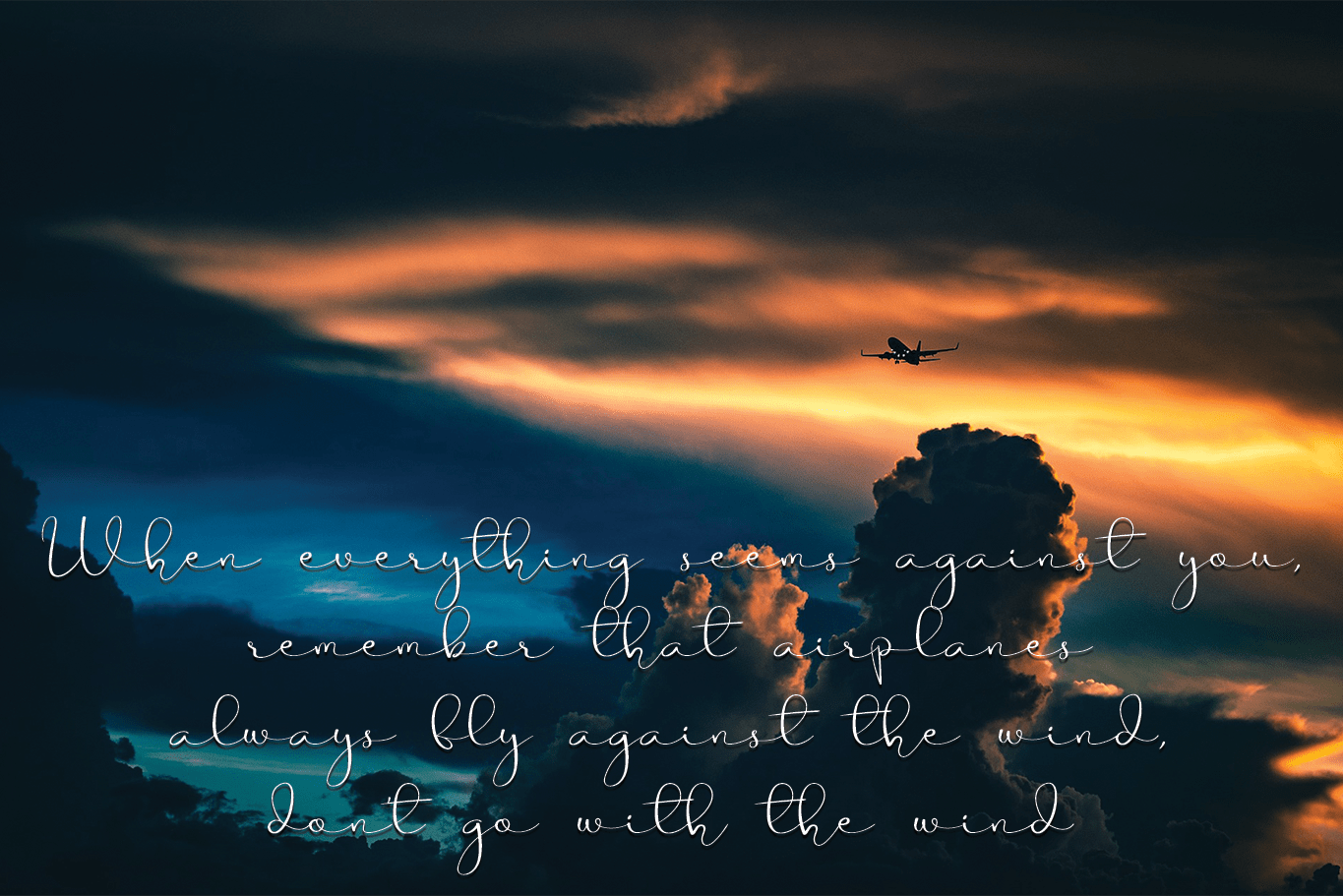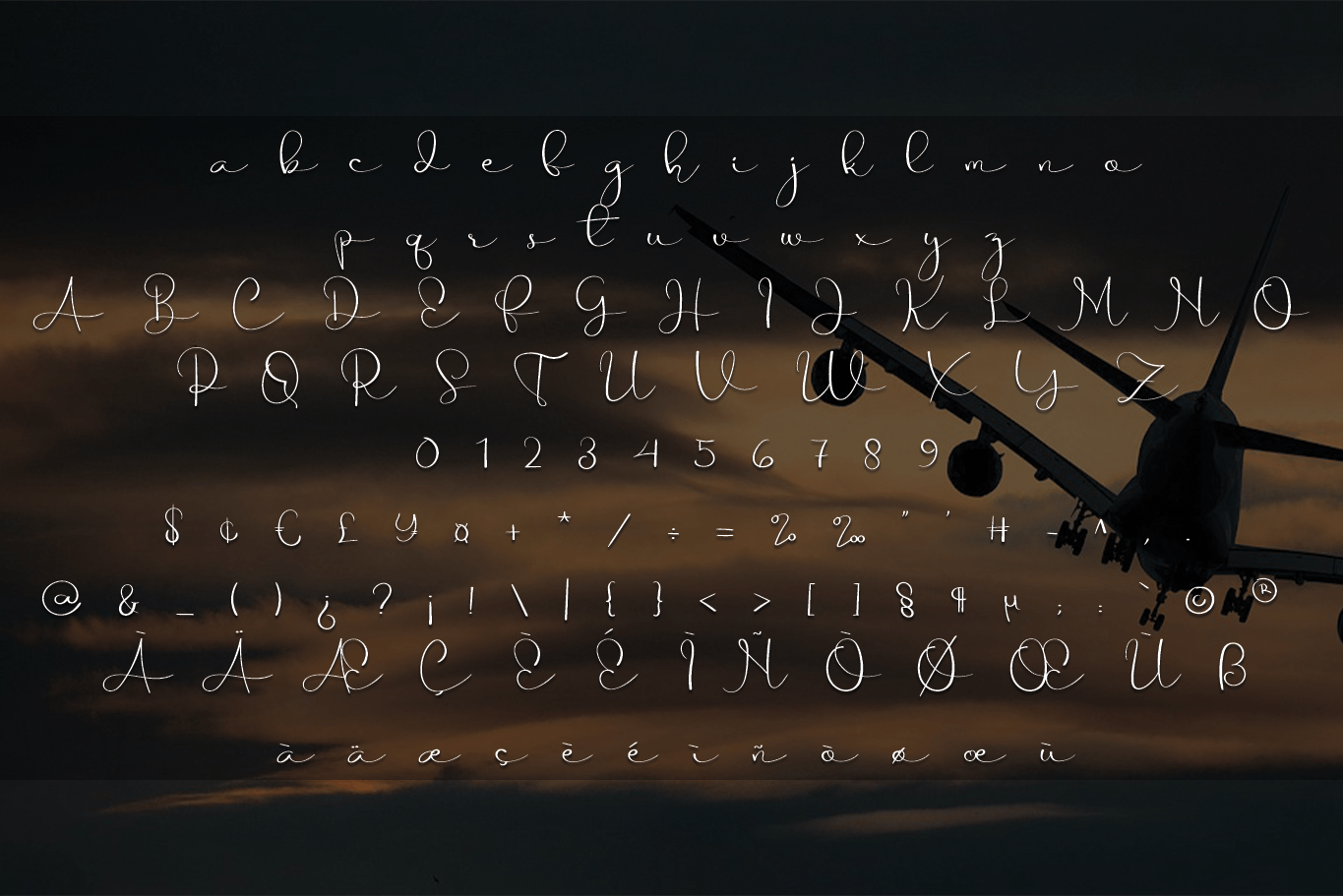
The Airplane Font
The Airplane Script Font
This is a nice handwritten font, which feels incredibly elegant and flowing. It looks stunning on wedding invitations, thank you cards, quotes, greeting cards, logos, business cards and every other design which needs a handwritten touch.